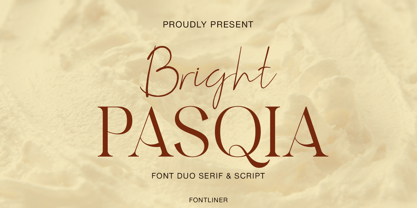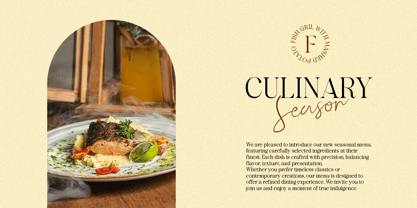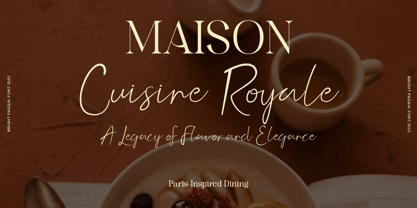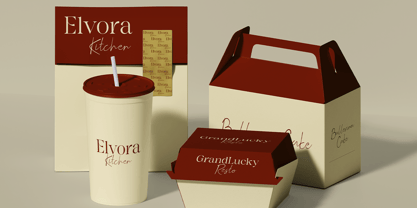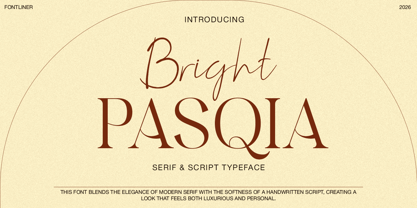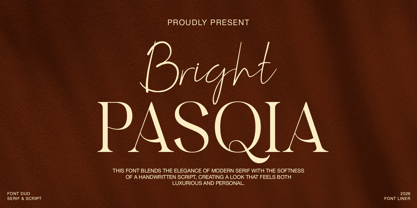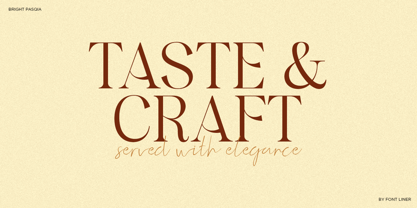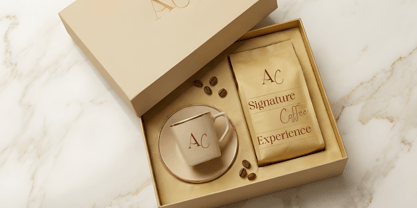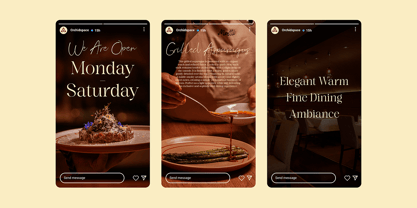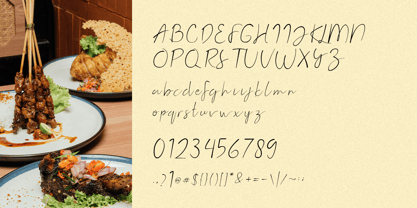
Bright Pasqia Script
by Font Liner
The Bright Pasqia Script Font Family was designed by Ghina Luthfiarieska and published by Font Liner. Bright Pasqia Script contains 2 styles and family package options. More about this family
Bright Pasqia is a sophisticated font duo that seamlessly blends the elegance of a modern serif with the softness of a handwritten script. This harmonious combination creates a refined yet personal aesthetic, making it perfect for designs that seek both luxury and warmth. The serif provides structure and authority, while the script adds a natural, flowing touch. Designed for versatility, Bright Pasqia excels in branding, wedding invitations, editorial layouts, and premium product packaging. The contrast between clean serif forms and expressive script strokes allows for dynamic and eye-catching compositions. Whether used together or separately, both styles enhance visual storytelling with elegance and charm. With multilingual support and thoughtfully crafted alternates, Bright Pasqia adapts beautifully to various creative needs. It is the ideal choice for designers aiming to create timeless, stylish, and emotionally engaging typography for modern luxury projects.